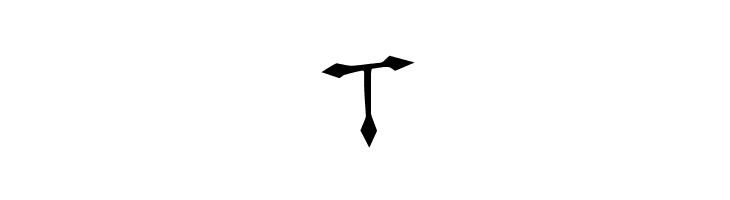
• DiagaNO
• Diamond Fantasy
( Fonts by Neale Davidson - www.pixelsagas.com )
A geometric font with diamond-shaped cutouts and a modern, edgy style.
• DiamondCut
A bold, angular font with a geometric, shard-like design.
• DiamondLux
A bold, textured font with a hand-drawn, artistic style.
• DiamondPlate
A bold, industrial-style font with a diamond plate texture.
• Diamonds are forever
A bold, geometric font with angular and futuristic design elements.
• Diamonds are forever
A bold, geometric font with angular, futuristic design.
• dickhop
• DiffiKult
A bold, geometric font with a modern and dynamic style.
• Digicity
A modern, geometric sans-serif font with consistent stroke widths and a sleek design.